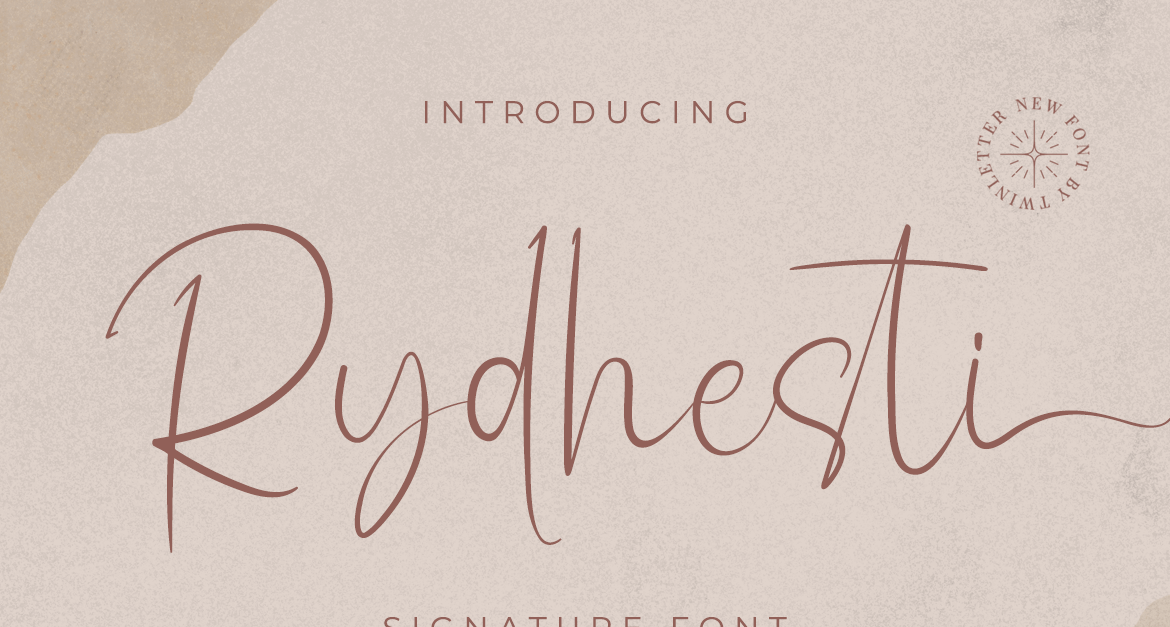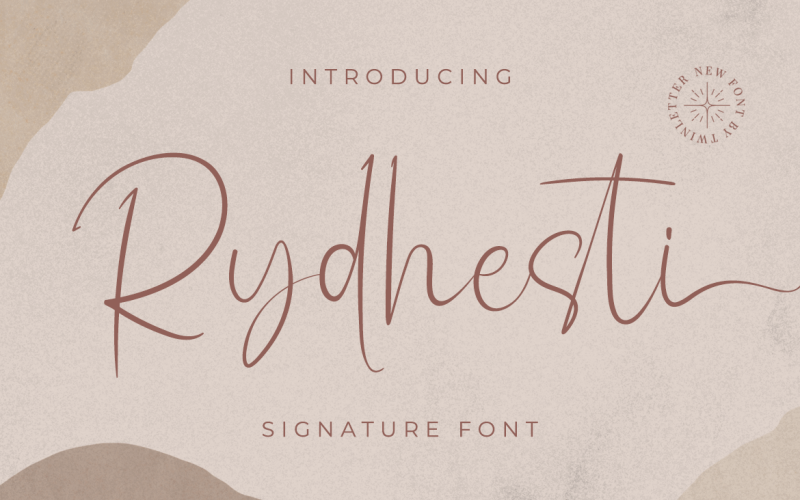
Rydhesti - Charming Signature Font
Rydhesti is an enchanting and charming signature font, the beautiful and smooth curves of each letter make this font seem luxurious, clean and beautiful.
not only that, this font is equipped with a flexible choice of letters to produce the right words according to your needs.
Use it to add an authentic, heartfelt vibe to any design project.
This font is perfect for business cards, photography studios, autographs, interior designs, model names, coffee late, travel, weddings, cosmetics, jewelry, social media posts, product packaging, watermarks, special events, or anything else.
Start using this font to add an authentic and heartfelt vibe to any design project.